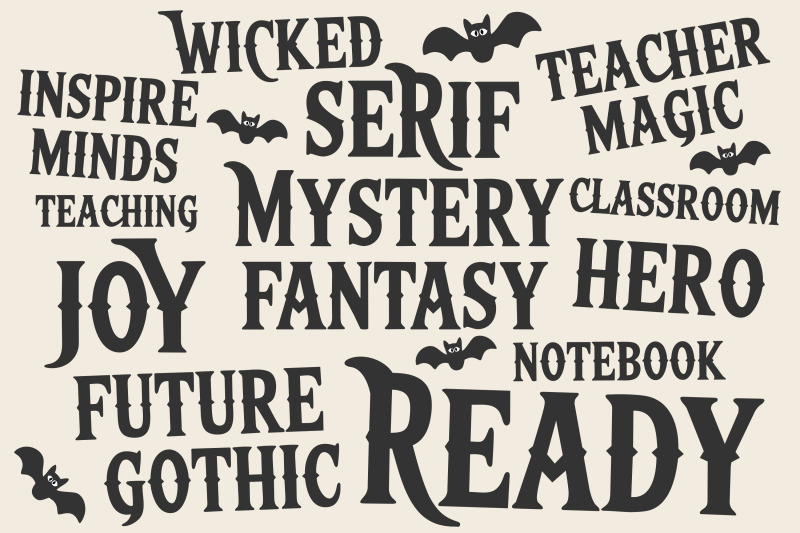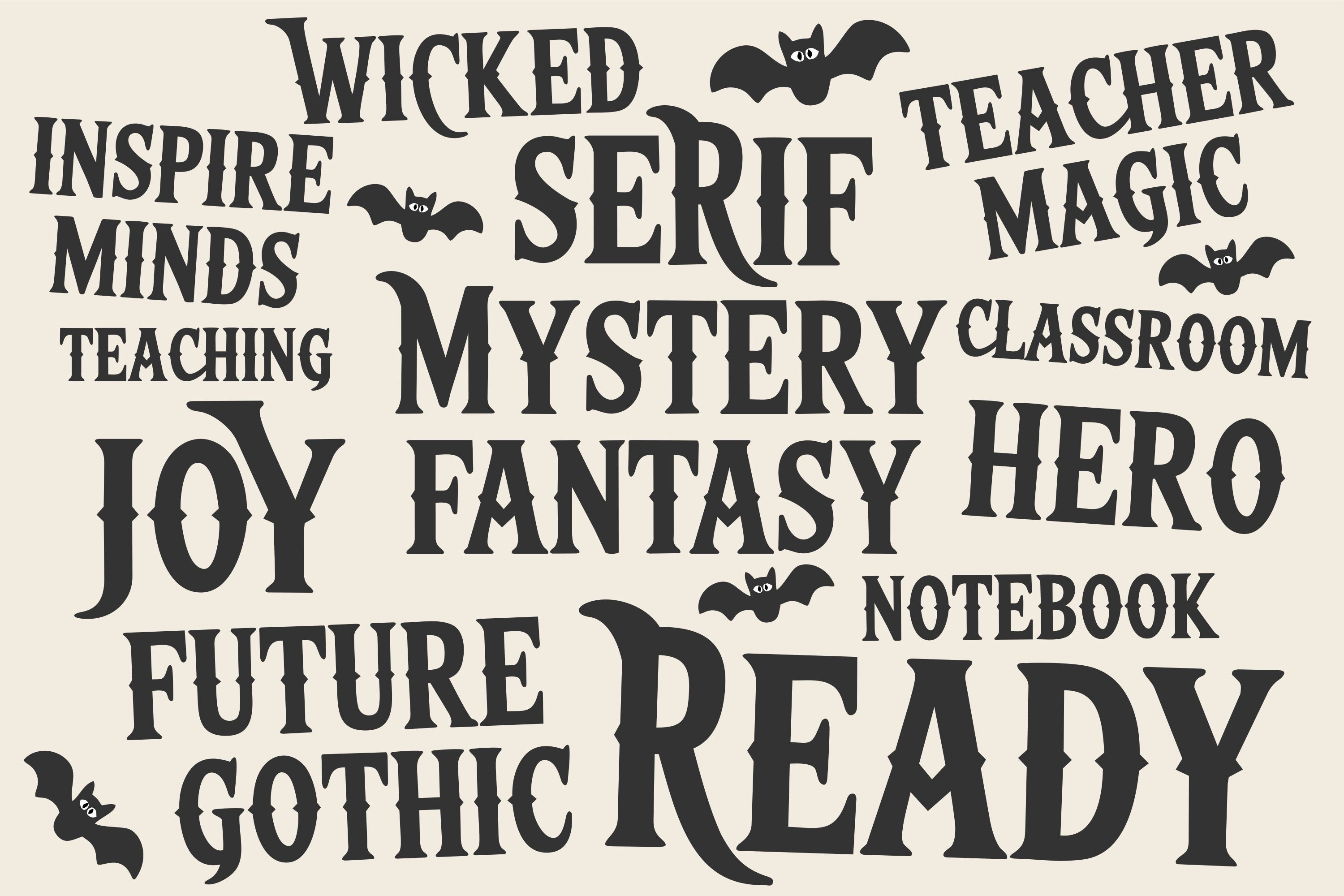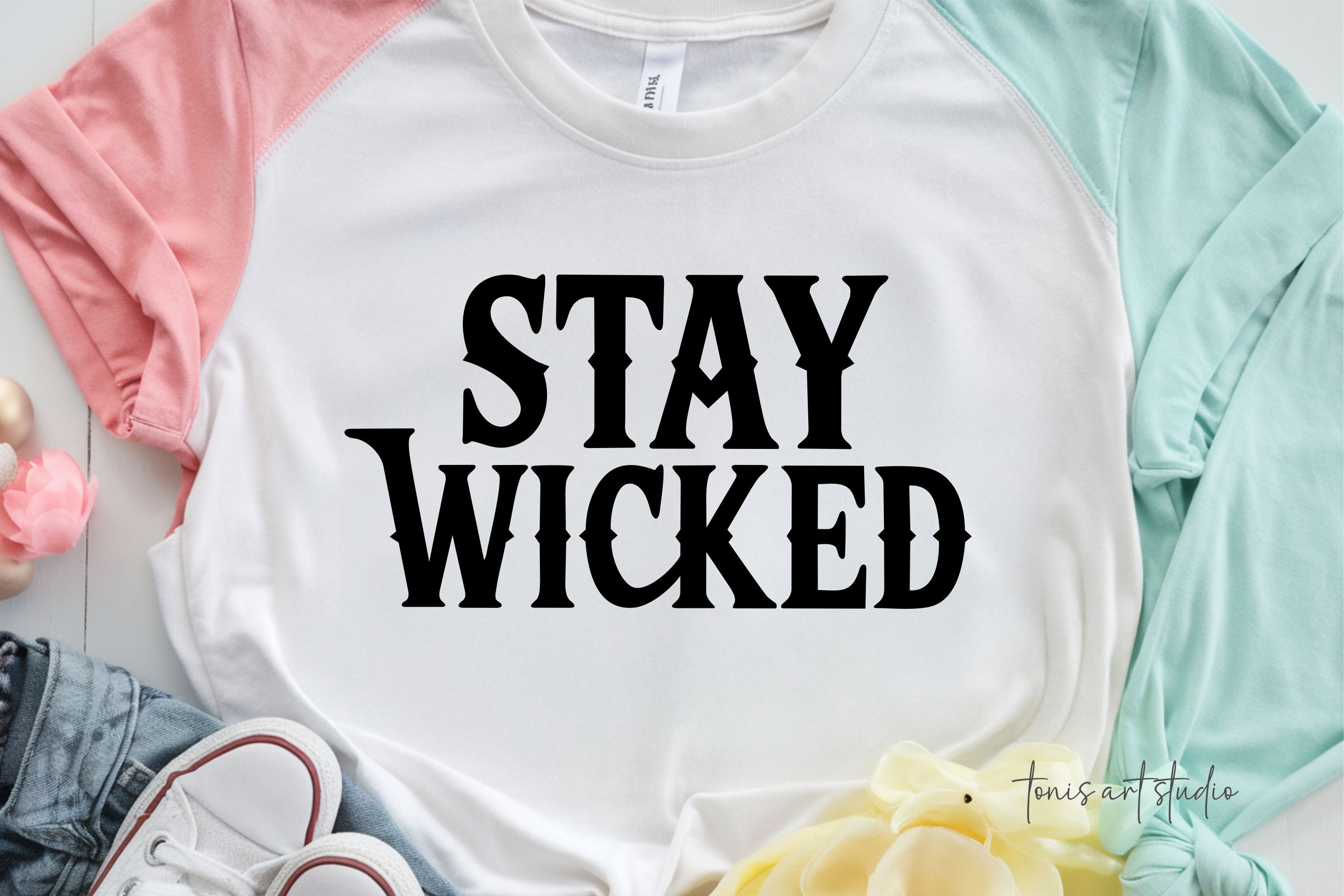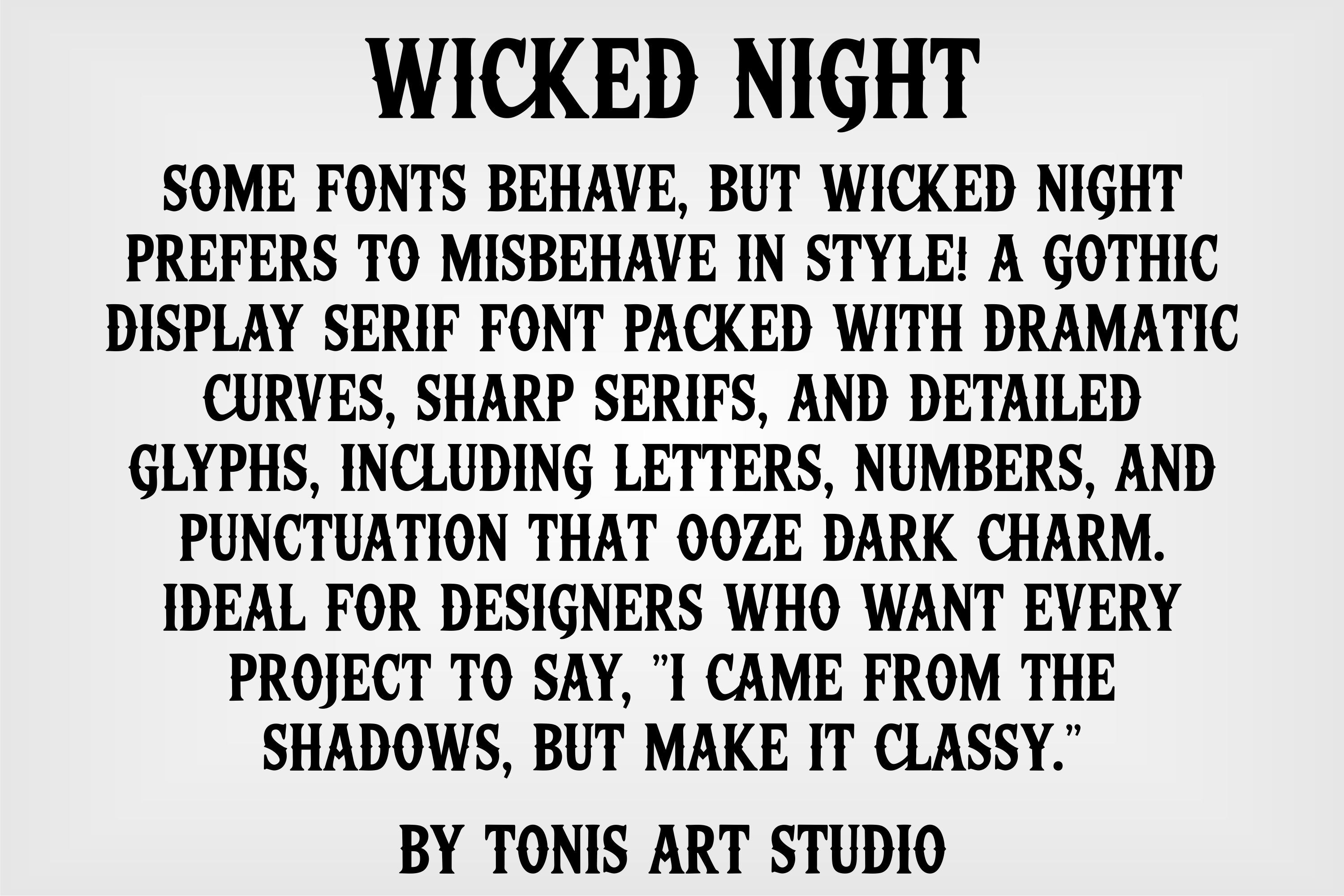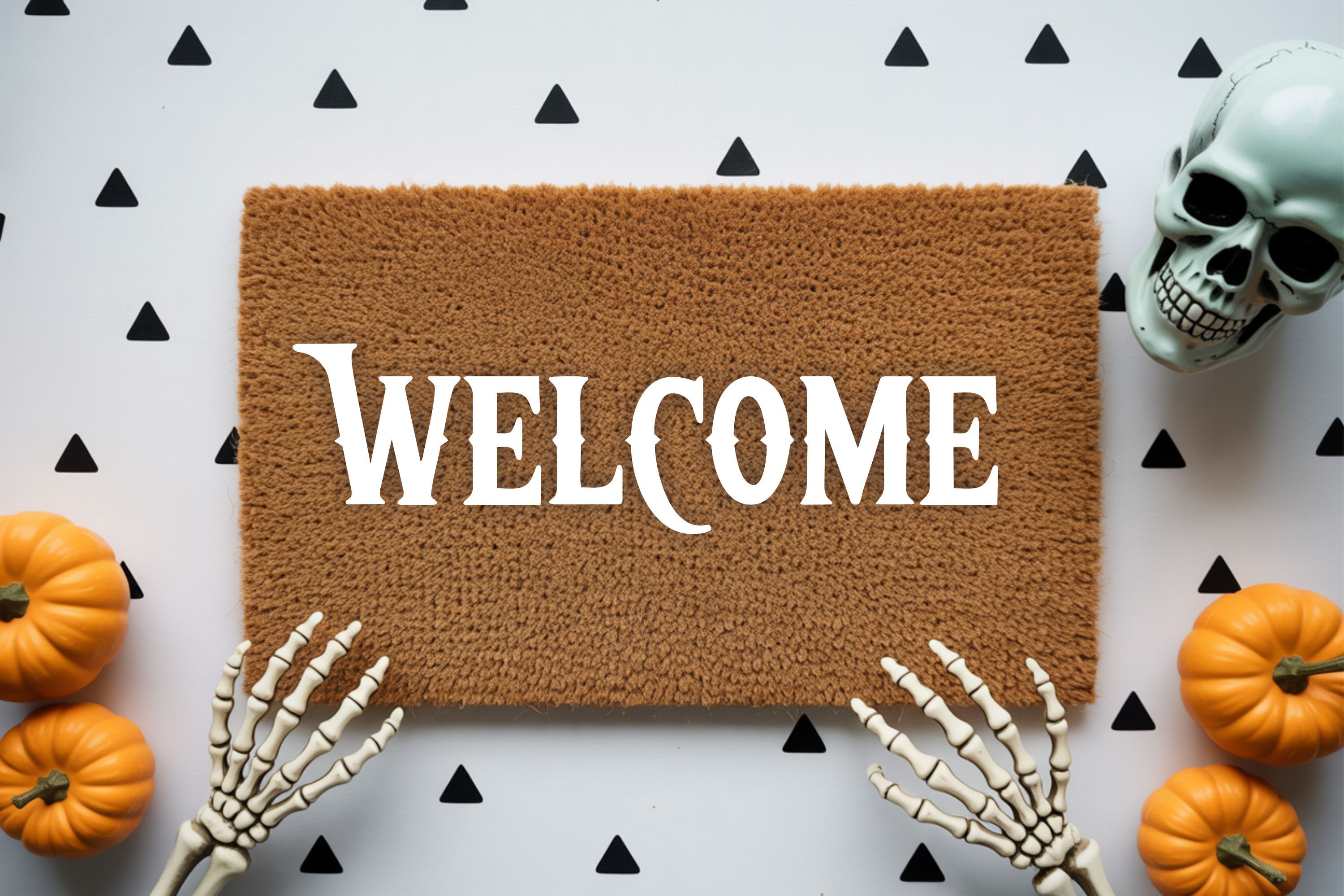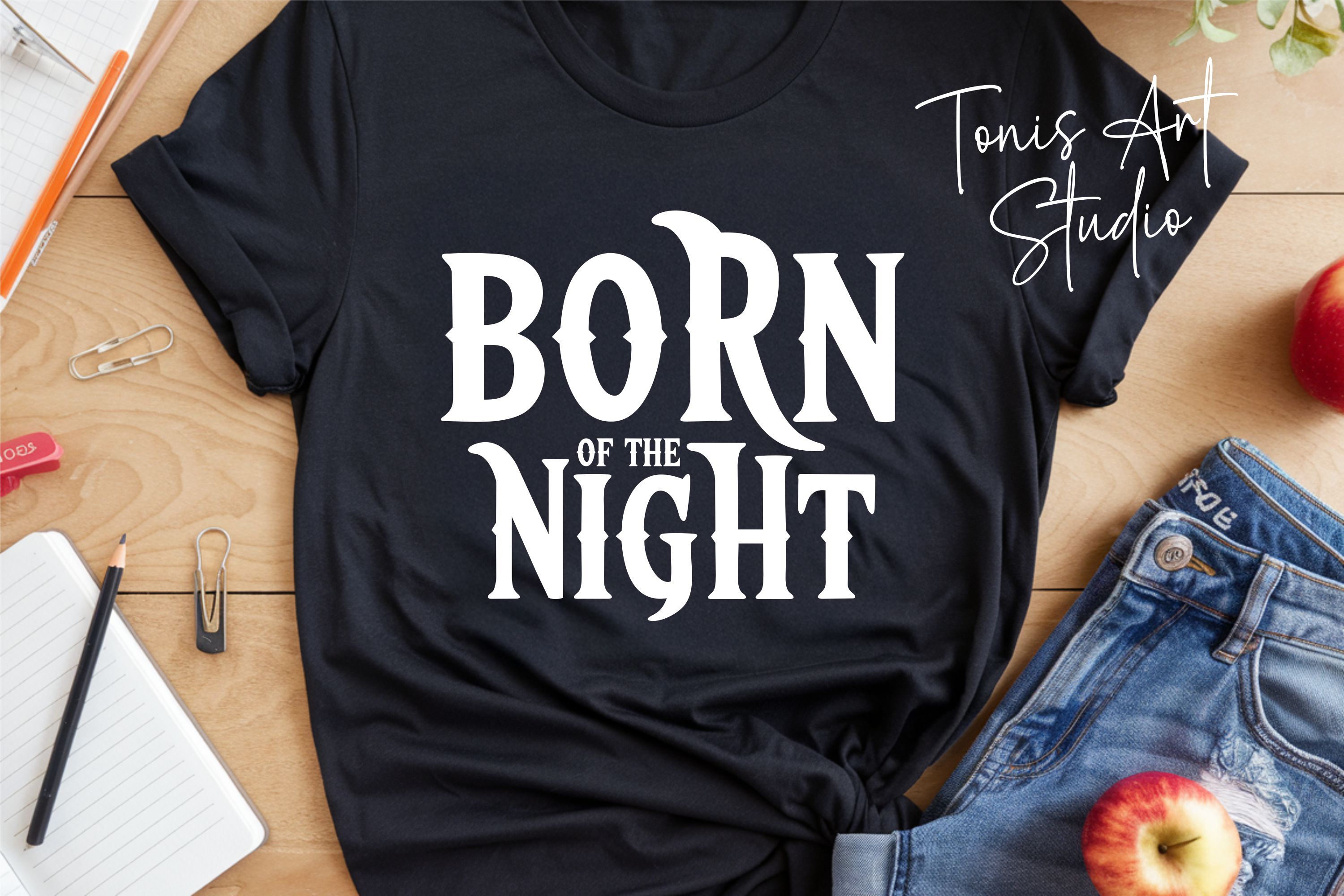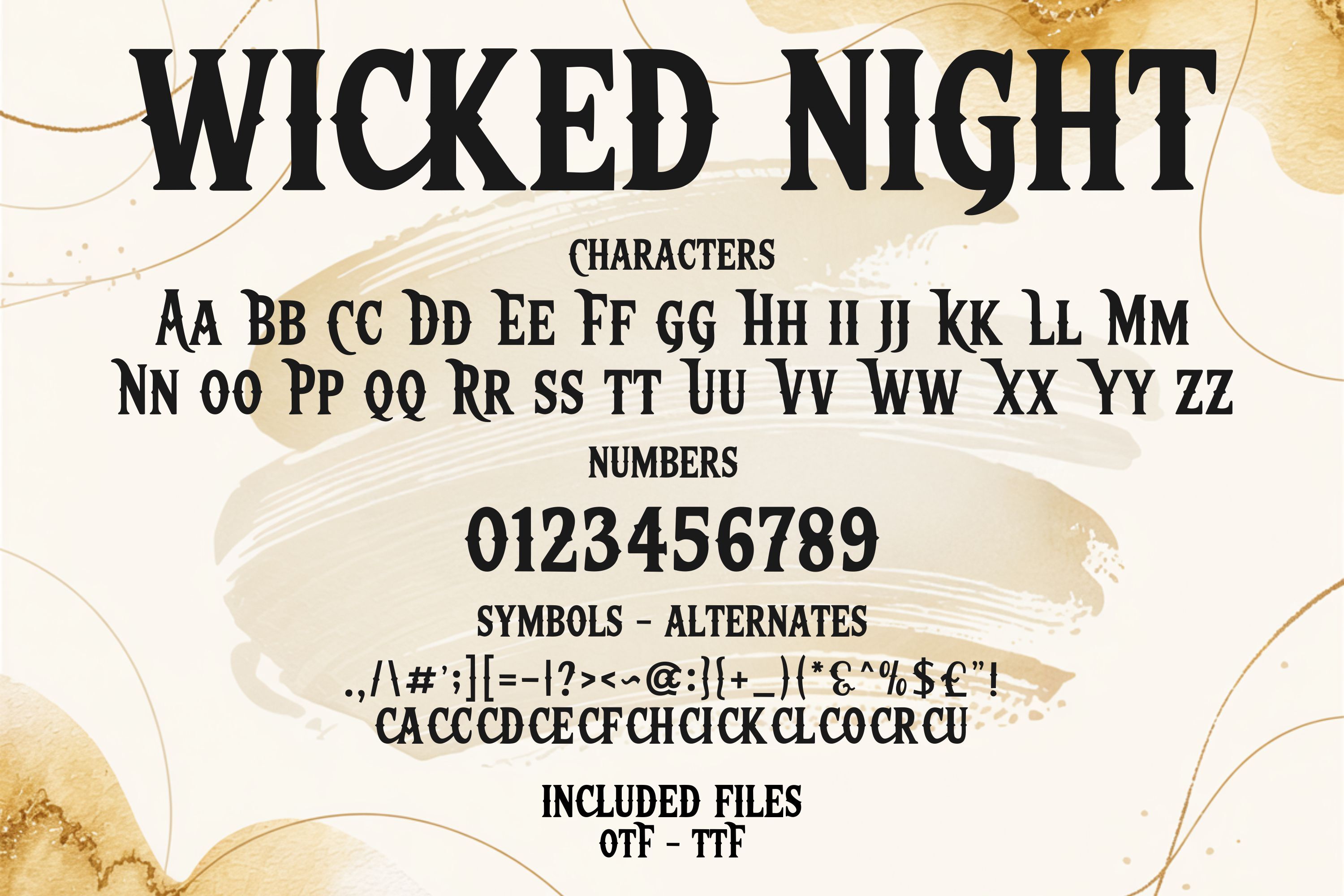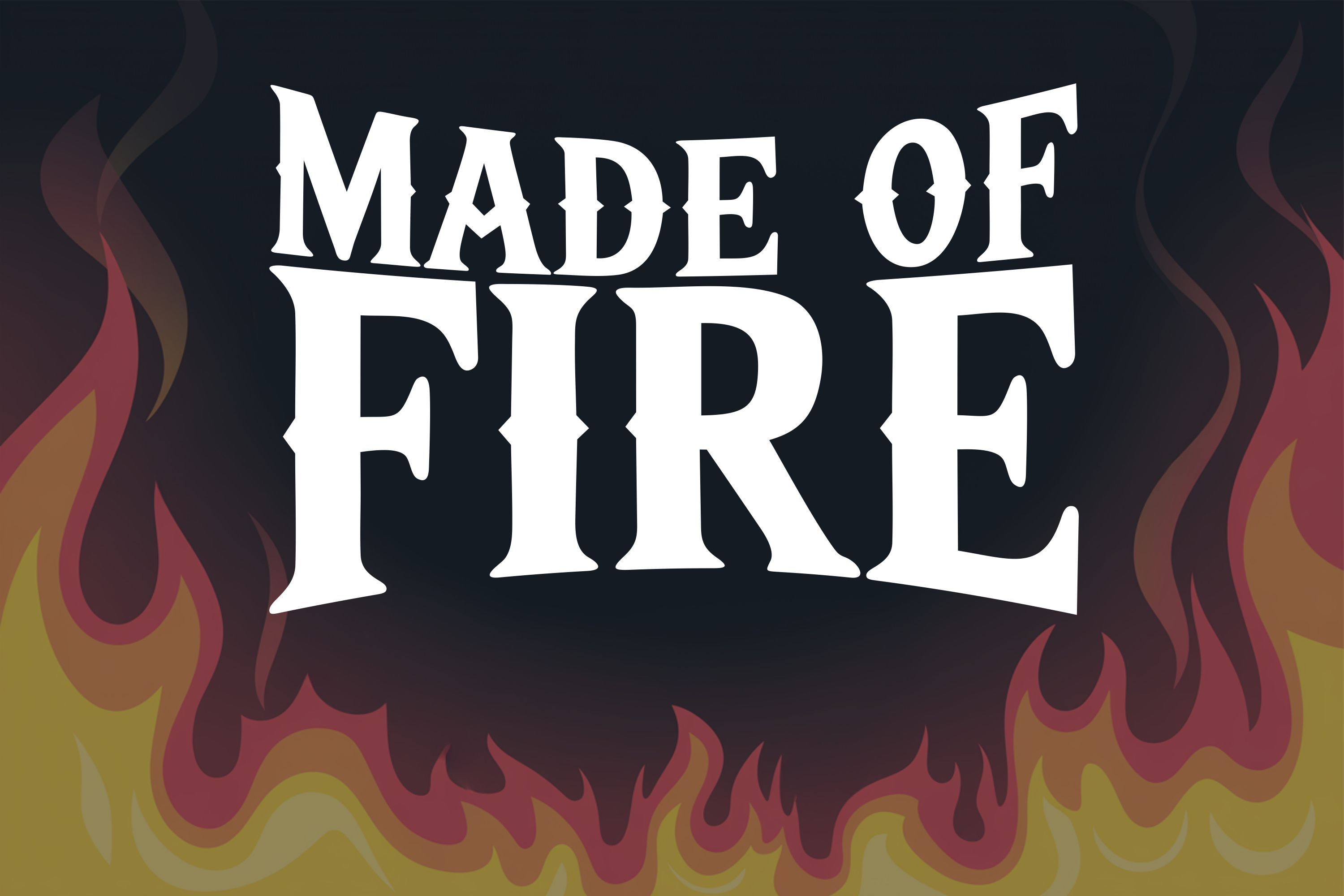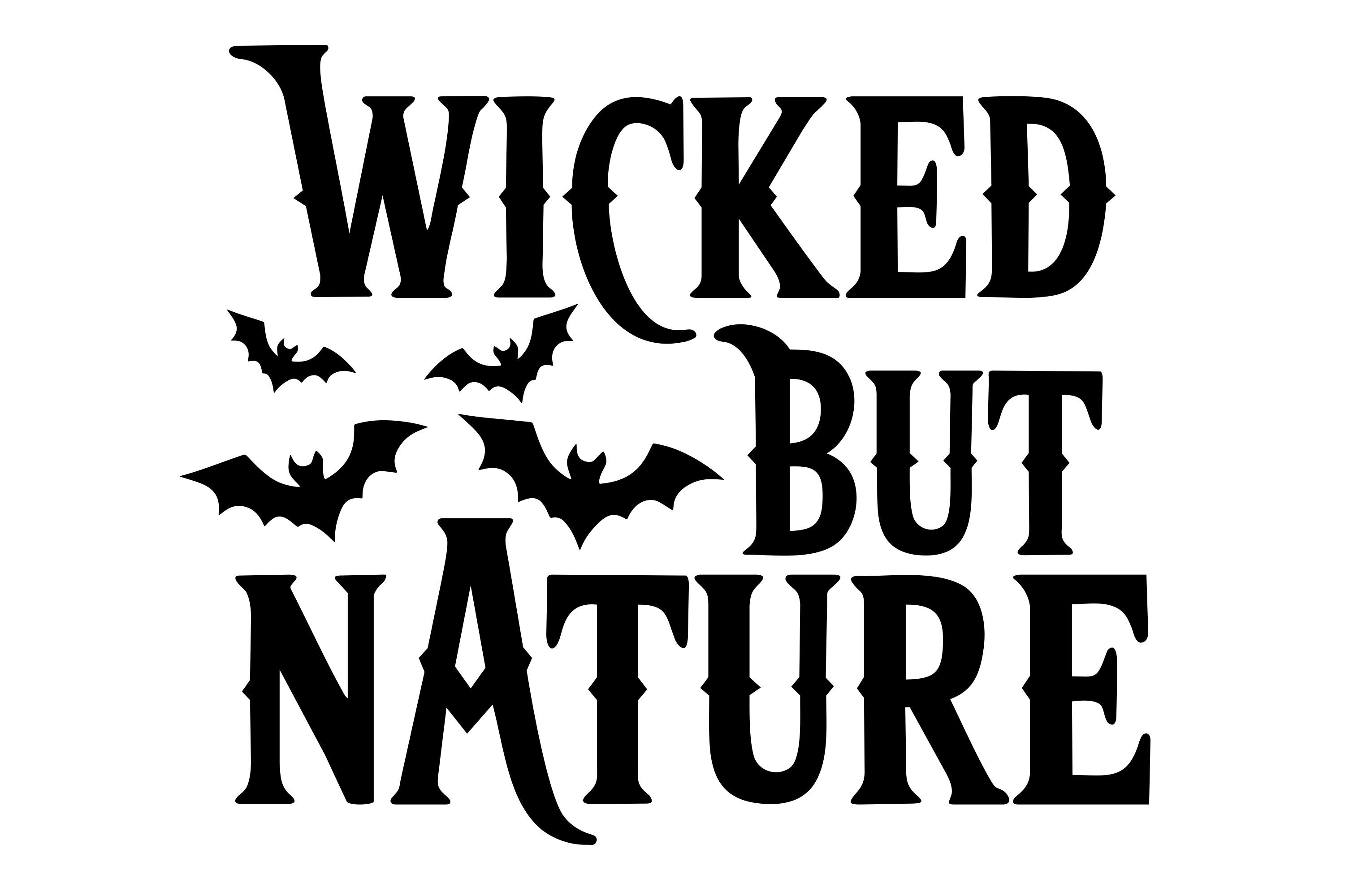
The Wicked Night Font is a bold gothic display serif typeface designed to bring mystery, elegance, and a touch of drama to your creative projects. With its sharp edges, dark curves, and distinctive gothic flair, this font blends vintage fantasy with modern design — perfect for projects that need both power and style.
A standout feature? Its detailed glyphs, including uppercase and lowercase letters, numbers, punctuation, and alternates that give every word a hauntingly beautiful presence. Whether you’re designing fantasy book covers, dark aesthetic t-shirts, moody logos, or digital artwork, Wicked Night transforms ordinary text into a captivating visual statement.
With its rich gothic personality and high readability, this font is ideal for designers and crafters who love blending mystery, beauty, and creativity in one elegant typeface.
Wicked Night
Wicked Night Font Spooky Gothic Typeface for Crafts